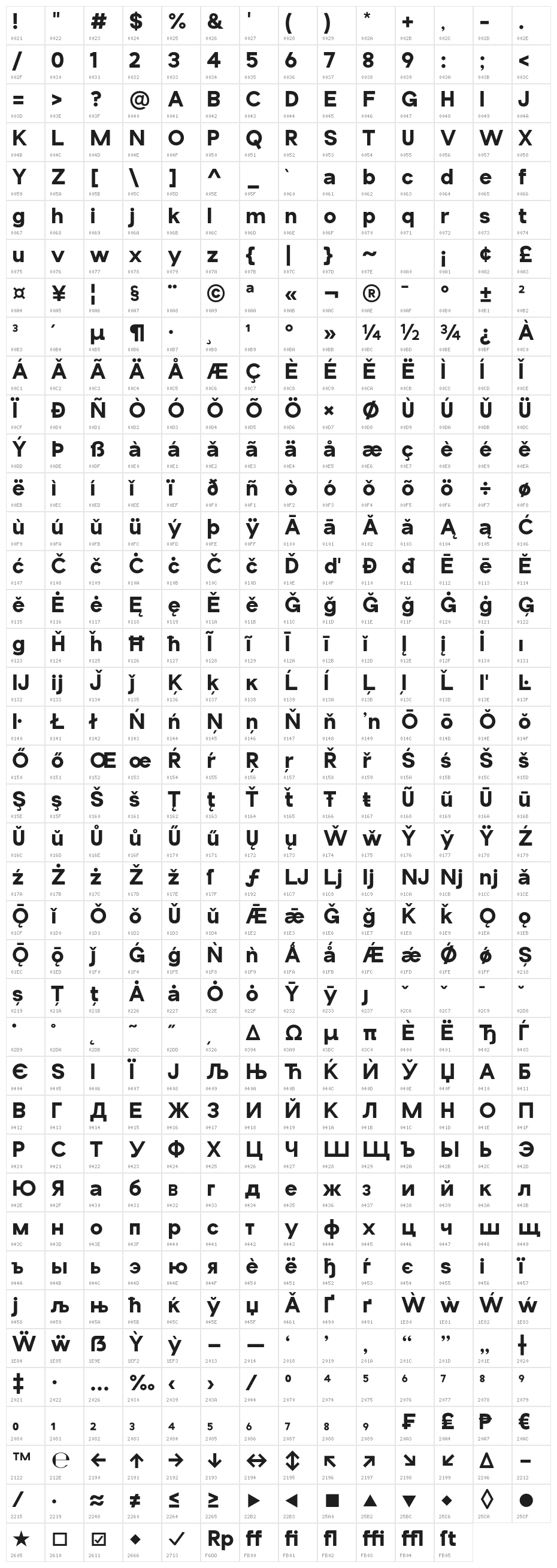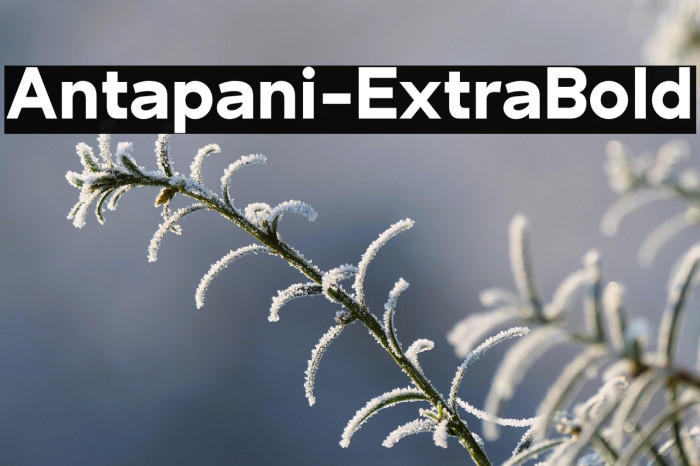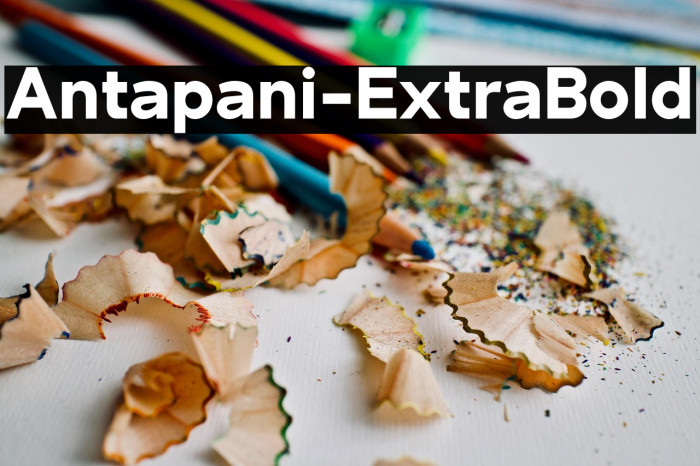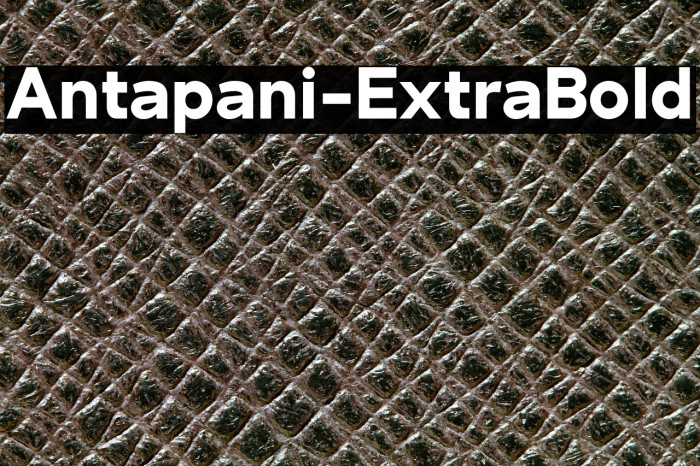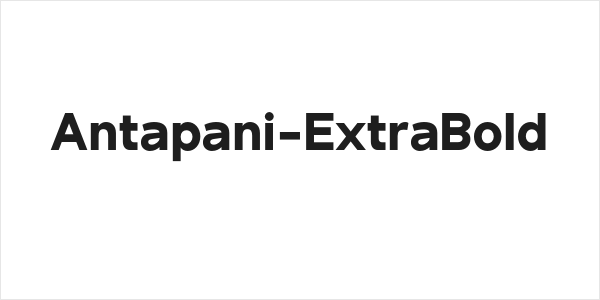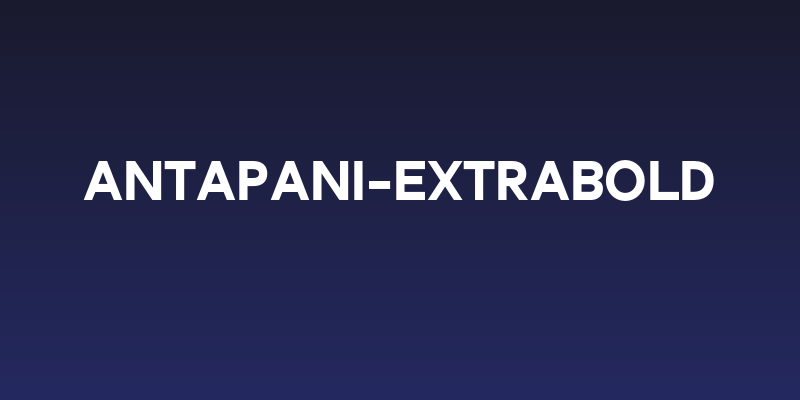
Antapani-ExtraBold Font
Antapani-ExtraBold Description
This typeface features a bold and assertive design, characterized by its thick strokes and clean lines. The uppercase letters are uniform in height, creating a strong and cohesive appearance. The lowercase letters maintain a similar weight, ensuring readability and balance. The numerals are clear and distinct, making them suitable for various applications. Special characters are well-defined, adding versatility to the font. This typeface exudes a modern and professional vibe, making it ideal for impactful headlines and branding.